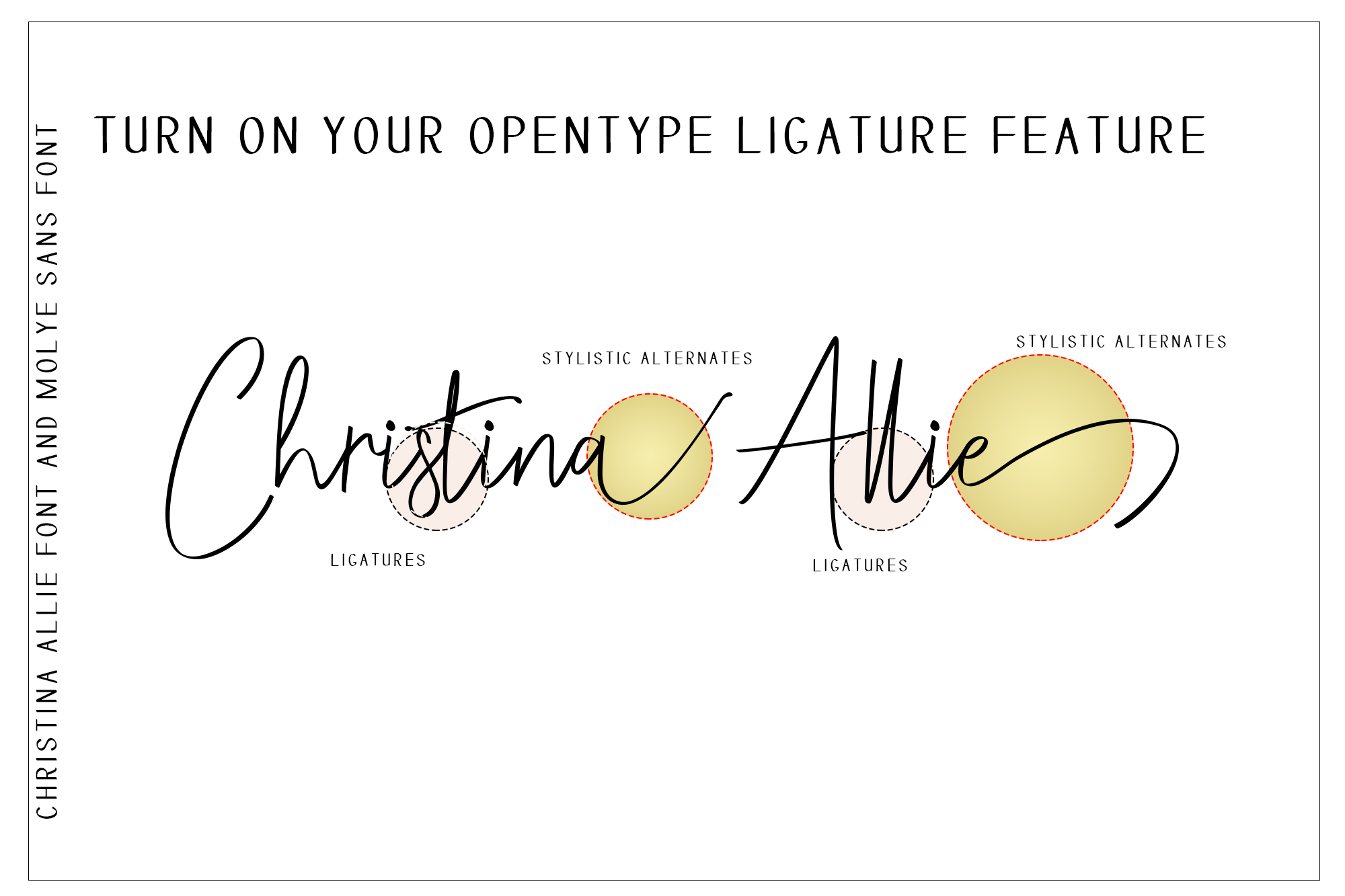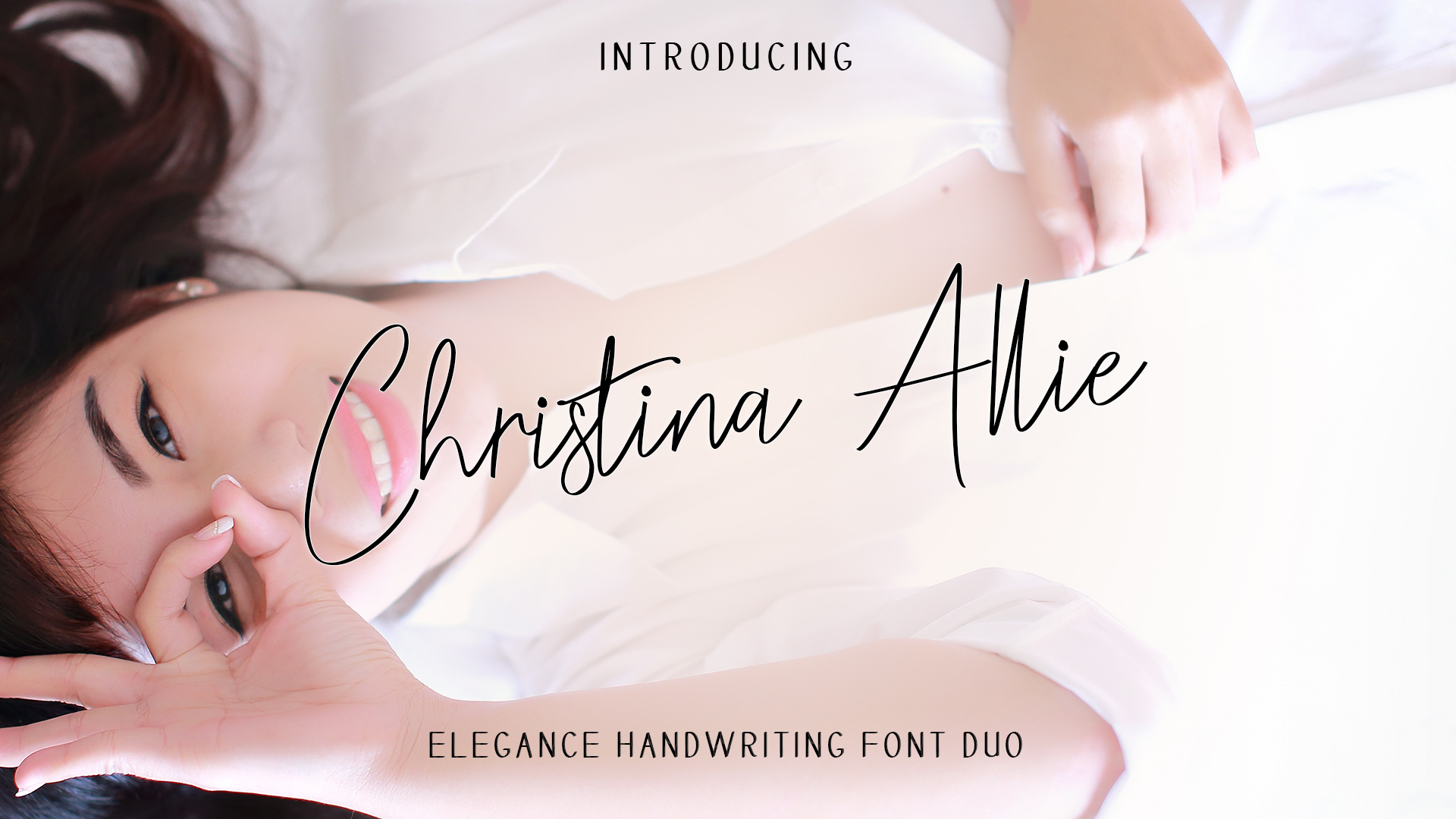
Christina Allie Handwriting
Christina Allie Handwriting Font
Christina Allie script a new fresh & modern script with a handmade calligraphy style, decorative characters and a dancing baseline! So beautiful on invitation like greeting cards, branding materials, business cards, quotes, posters, and more!!